35+ Most Popular Hand Drawn Fonts for design aficionados
As we all know in internet , we will get reputation only for our genuine work. And as designers , we must try to add uniqueness in our work. In the field of typography , we have been using the same ordinary fonts for years and Now it’s time to change. Let’s welcome the latest trend in the web design field especially in terms of typography , the new Hand drawn fonts. As the name implies Hand drawn fonts are created using hand sketching techniques. To create hand drawn fonts the designer must have high creativity to make fonts that can make the designs stand out from others.
35+ Most Downloaded Free Hand Drawn Fonts
Though hand drawn fonts are getting popular these days, it’s a bit difficult to get them since only a few sites have them. So in this post I have collected 37 popular hand drawn fonts which are free to download.
Sketchy : hand Drawn Font
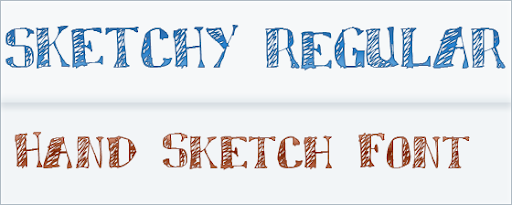
BillieBarred : Hand written font
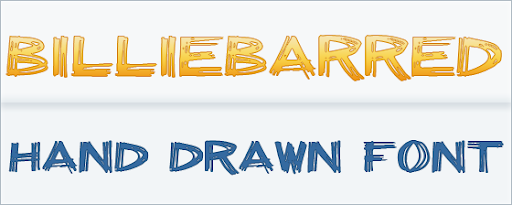
Action Jackson – Hand Drawn Font
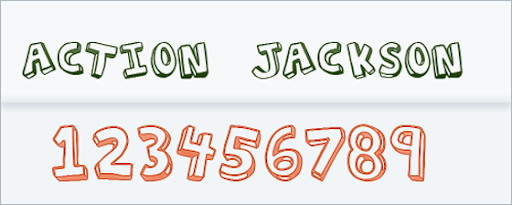
HandVetica – Free Hand Sketch Font
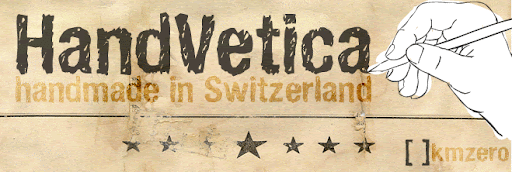
Urban Sketch – Free Hand Sketch Font
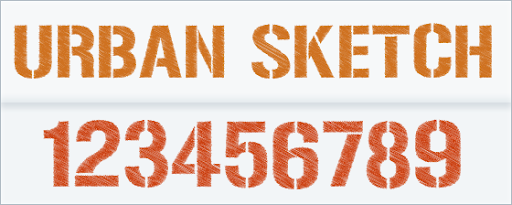
peach sundress – Free Cursive Font
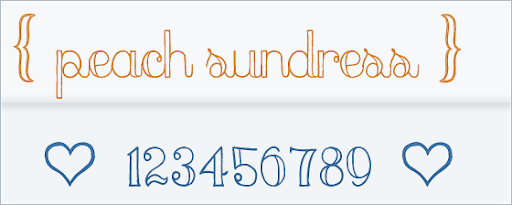
Take Out The Garbage
SandroAl, Regular : hand Drawn Font
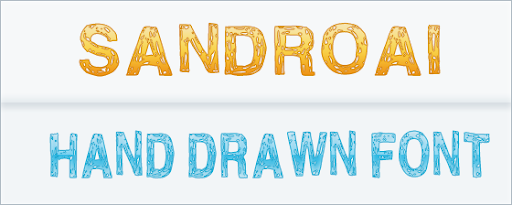
SketchBlock – Free Hand Drawn Font
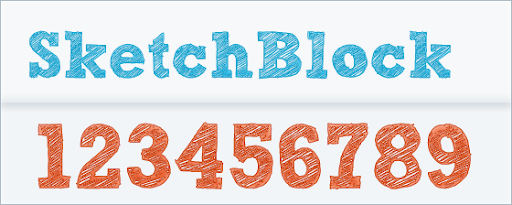
Pointy – Free Hand Drawn Font
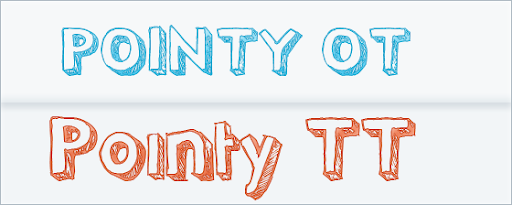
Village Idiot BB, Regular : hand Drawn Font
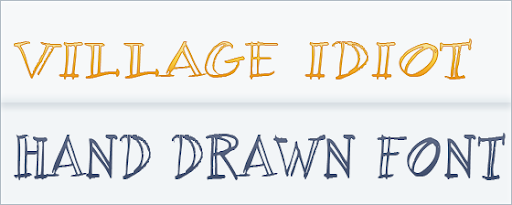
Grutch Shaded – Free Hand Drawn Font
FFF TUSJ- Free Hand Drawn Font
WC RoughTrad Bta : Hand Sketch font
Mia’s Scribblings- Free Hand Drawn Font
Fh Ink- Free Hand Drawn Font
McCoy – Hello Lori
Rock Show Whiplash : Hand Sketch font
Tiza : Sketchy font
Roughage : Hand Drawn font
Thurston Erc : Hand Drawn font
Peixe Frito: Hand Drawn font
karabine : Hand Drawn font
Waste Of Time – brankovic : Hand Drawn font
Arcanum : Hand Drawn font
Brody : Handwritten font
Calligula : Handwritten font
Cratch : curvie Handwritten font
vtks sábado de chuva, Regular
vtks Animal 2
Film Cryptic : hand Drawn Font
FATSTACK : hand Sketch Font
ESQUISTO : hand Drawn Font
Truffle Shuffle : hand Drawn Font
Hannah Added Some Flare : hand Drawn Font
Snickles : hand Drawn Font
Sketch Rockwell – Hand Drawn Font